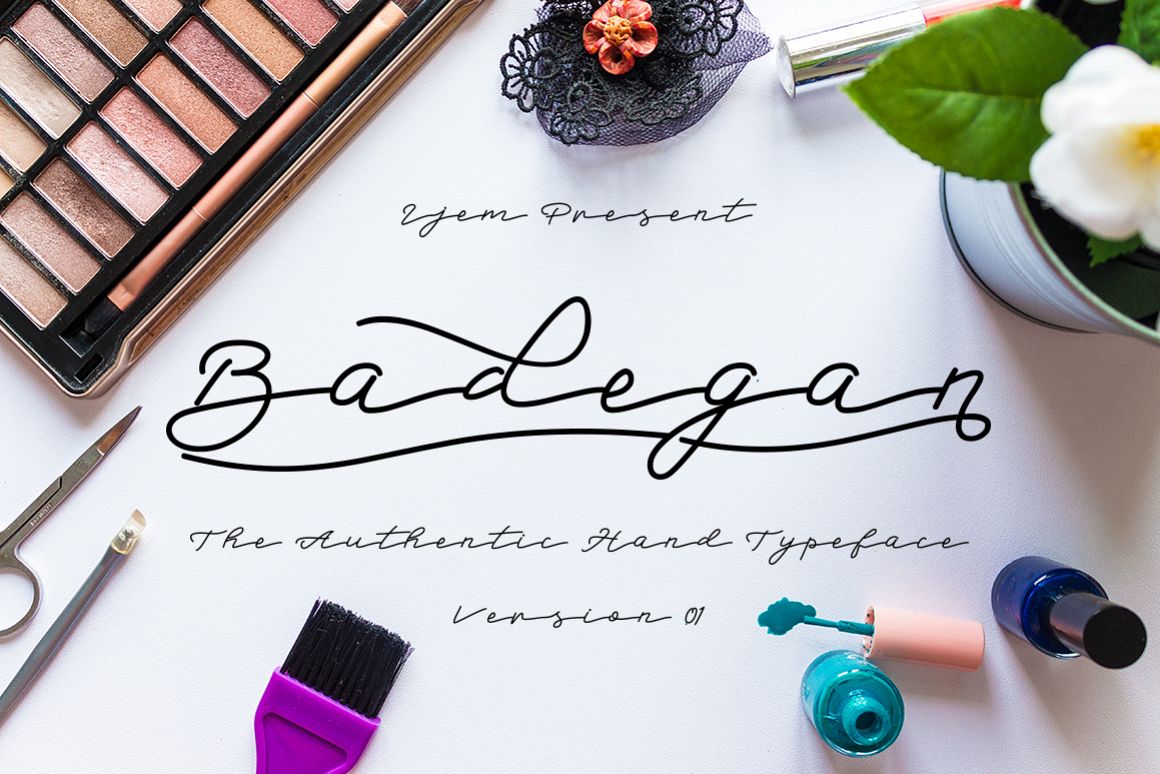
Badegan Script_OFF 30
BadeganScript
IntroducingBadegan Script_OFF 30%Badegan Script a new fresh & modern script with a handmade calligraphy style, decorative characters and a dancing baseline! So beautiful on invitation like greeting cards, branding materials, business cards, quotes, posters, and more!!Badegan Script come with 377 glyphs. The alternative characters were divided into several Open Type features such as Swash, Stylistic Sets, Stylistic Alternates, Contextual Alternates. The Open Type features can be accessed by using Open Type savvy programs such as Adobe Illustrator, Adobe InDesign, Adobe Photoshop Corel Draw X version, And Microsoft Word. And this Font has given PUA unicode (specially coded fonts). so that all the alternate characters can easily be accessed in full by a craftsman or designer.Badegan Script Features :Uppercase & Lowercase International Languange & Symbols Support Punctuation & Number PUA Unicode Range Standard Stylistic Alternates Stylistic Set 1-7 Character Variant Contextual. The ZIP file are include the following :Badegan Script.OTF Badegan Script.TTF,Badegan Script Web Font (eot, svg, woff, woff2) If you don't have a program that supports OpenType features such as Adobe Illustrator and CorelDraw X Versions, you can access all the alternate glyphs using Font Book (Mac) or Character Map (Windows).For use in office word, you all can read the following article.http://www.magpiepaperworks.com/blog/using-opentype-fonts-in-microsoft-word/ To Access Alternate Characters Click The Link Below:http://theartistry.littlebigcrafter.com/community/the-ultimate-font-guide/ How to access alternates in Adobe illustrator CS https://www.youtube.com/watch?v=geL0Ye02Ryk How to access alternates in Adobe illustrator CC https://www.youtube.com/watch?v=V25yiUh8BcE How to access alternates in Ms Wordhttps://www.youtube.com/watch?v=HxkhZiCuwEw How to access alternates in Coreldraw X7https://www.youtube.com/watch?v=UBVsufJjons How to access alternates in Adobe Photoshop CChttps://www.youtube.com/watch?v=BYKXl58AdNY How to access alternates in Indesign CShttps://www.youtube.com/watch?v=HgZTCxKG14Q How to access alternates in another softwarehttps://fontbundles.net/tutorialsIf you have any question, don't hesitate to contact me by email  Thanks and happy designing :-)Thank You for purchase!